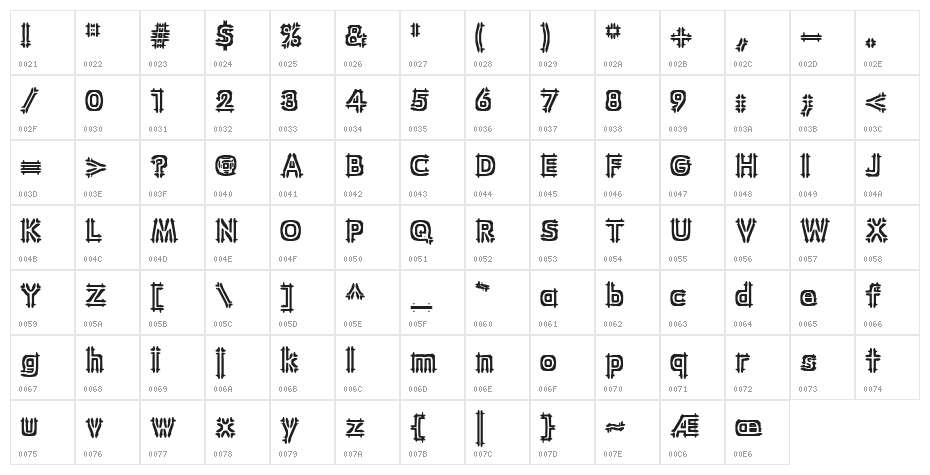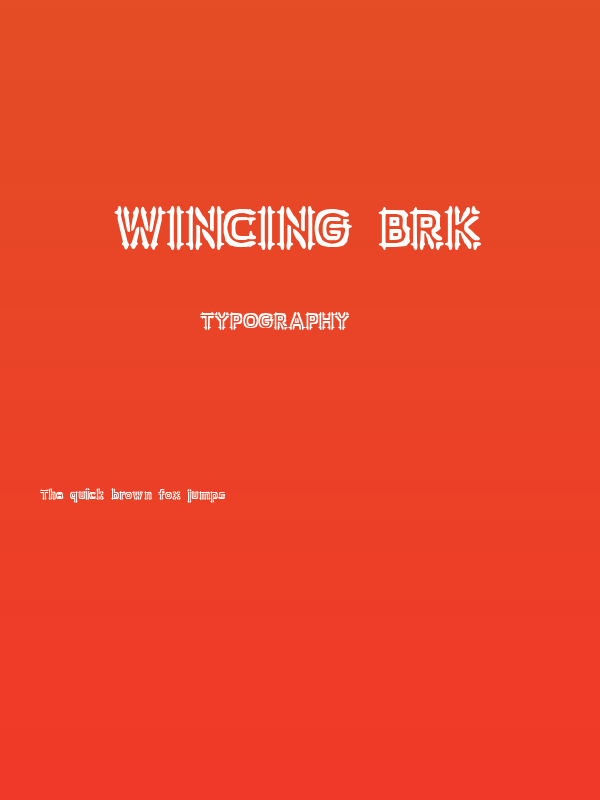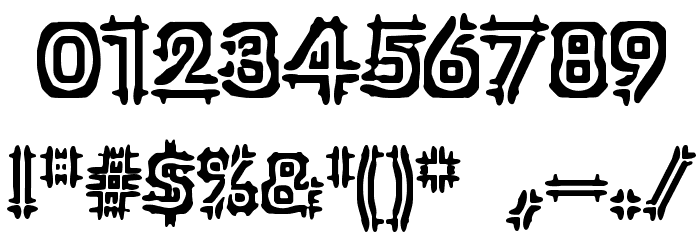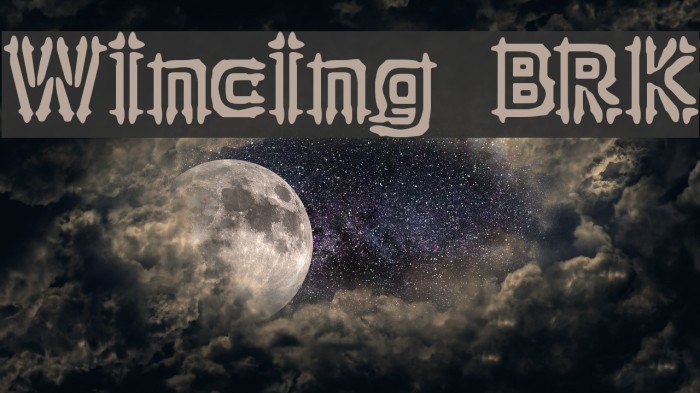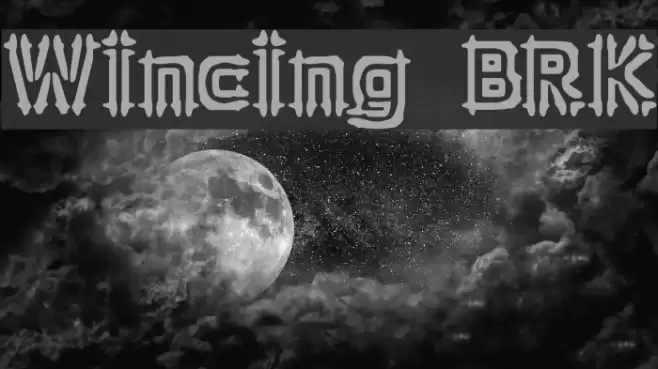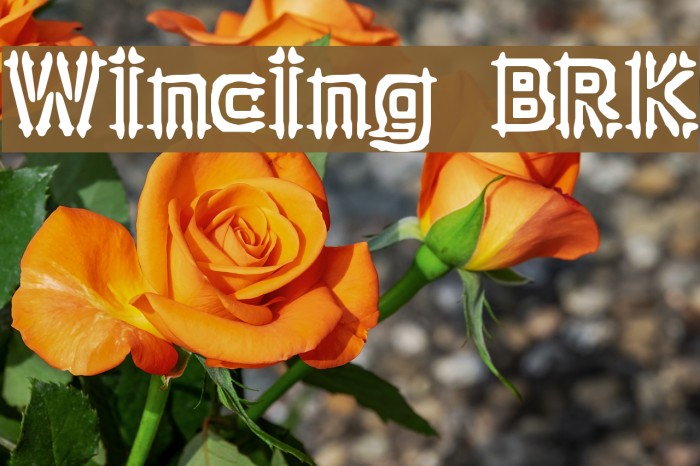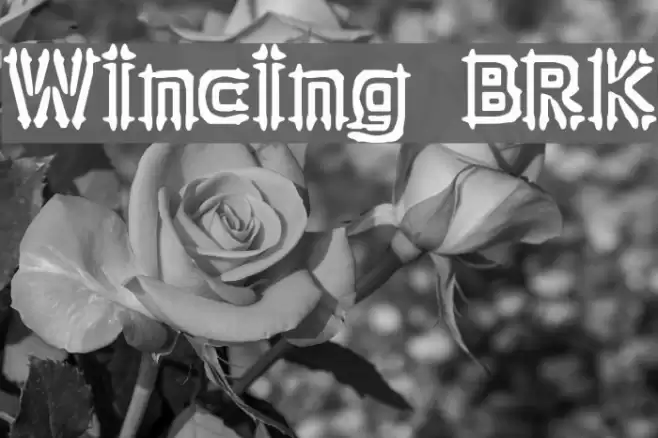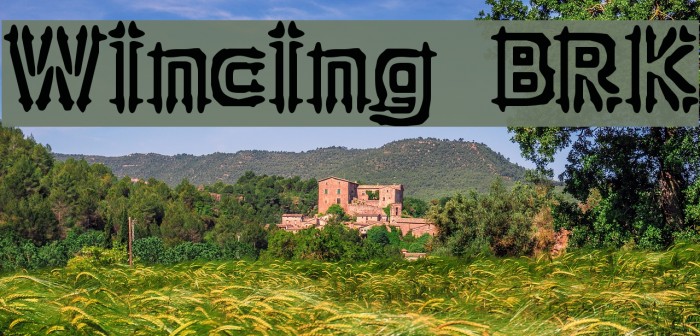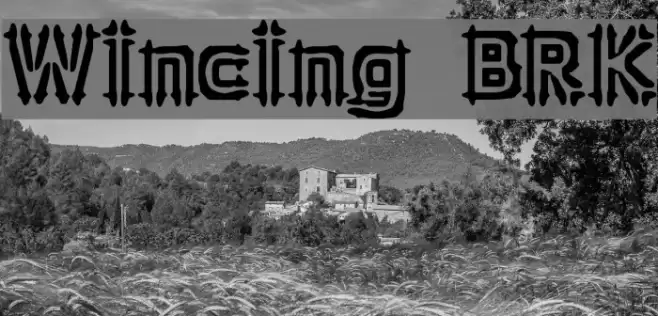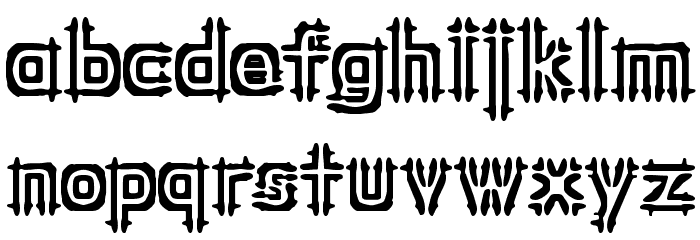
Wincing BRK Font
Wincing BRK Description
This font features a bold and decorative style with unique, spiky serifs that give it a distinctive and edgy appearance. The characters are designed with a high level of detail, incorporating sharp angles and pointed elements that create a sense of movement and energy. The uppercase and lowercase letters maintain a consistent style, while the numerals and special characters complement the overall design. The font's boldness and intricate details make it stand out, suitable for eye-catching designs.
| Proposed Projects | Ideal for Halloween-themed projects, edgy posters, album covers, and any design requiring a bold, eye-catching typeface. |